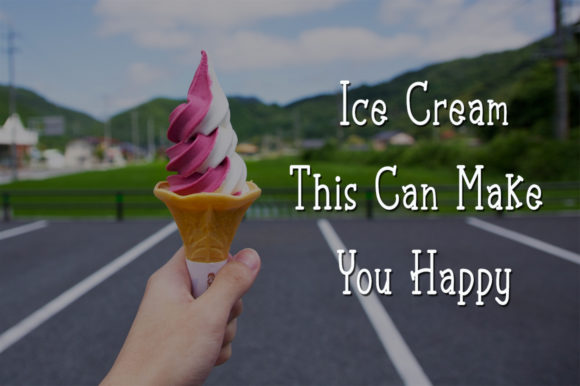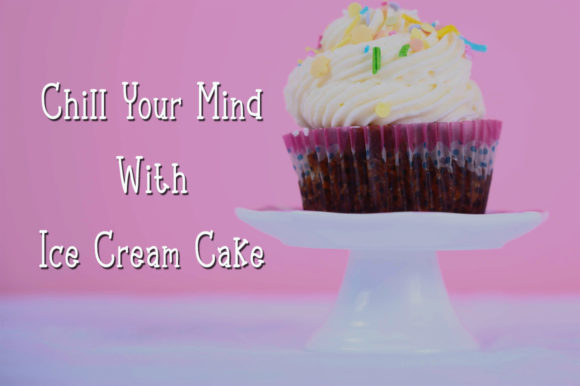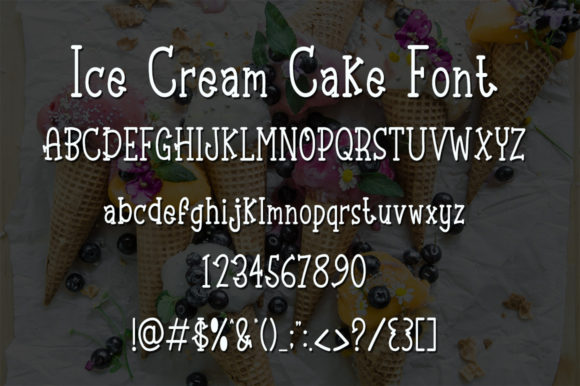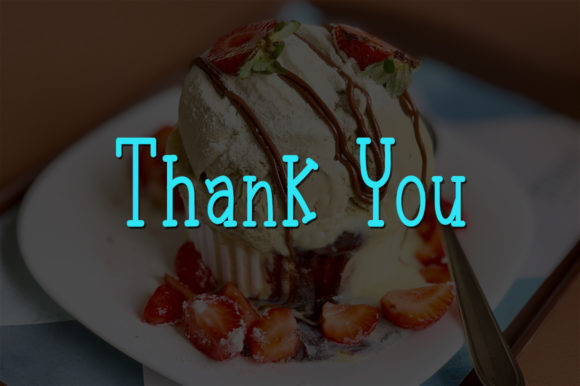
Introduction to Ice Cream Cake Font Font
Fonts play a crucial role in design, and the Ice Cream Cake Font font is a typeface that brings both character and versatility to any project. Whether you’re working on a branding project, a website, or a print design, the Ice Cream Cake Font font offers a unique style that can elevate your work.
Ice Cream Cake is a cute and quirky handwritten font.
Add this sweet font to each of your creative ideas and notice how it makes them stand out .
Key Features of Ice Cream Cake Font Font
Why Choose Ice Cream Cake Font Font?
The Ice Cream Cake Font font is more than just a typeface – it’s a design tool that helps you communicate your message with style and clarity. Its unique character set and versatile design make it suitable for a wide range of applications, from elegant invitations to bold headlines.
With its carefully crafted letterforms and balanced proportions, the Ice Cream Cake Font font ensures readability and visual appeal across all mediums.
What makes Ice Cream Cake Font font special?
The Ice Cream Cake Font font stands out with its unique design, exceptional readability, and versatility across various design applications.